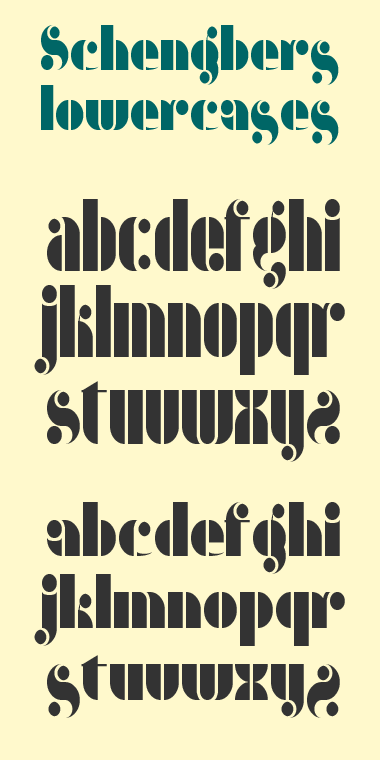
Schengbers LC
by kassymkulov
Just wanted to have some opinion and suggestions while making uppercase for each lowercase in here. Schengber (Шеңбер) means circle in my language. I want this to be a family, so ideas for "Schengbers uppercases", "Schengbers tall" & "Schengbers short" are in mind. Thanks and Enjoy!
Beautiful execution of the new bricks. 10/10
Delightful! Those little whiskers derived from the fin bricks are k-e-w-t as can be. The liveliness of this one puts my isthmus family in its proper place.
Fontstructors are really stepping up their composite game, lately. Fun stuff all around. 10/10!
Funny, how some works well worthy of the stencil comp are coming too late...
This one is very good. I love the G and the s. One should think of doing a poster only with the g's from various fontstructions.
You are absolutely on the right way. Are you going to develop cyrilic characters as well?
Very exciting use of the new bricks.
Yeap, new bricks rule! ;) Your dm Spira is another proof of it.
Isthmus series are delightful either. One can learn a lot by examining it.
Well, inspiration can't be controlled. Usually it just comes out of nowhere :) I remember failing at creating smth similar to this so many times.. Gladly, new bricks helped a lot.
Competition was very helpful, otherwise I would've never thought of "Barney Stencil" or "Bonn!".
Cyrillics. I actually plan to develop them on every fontstruction I've created, it's just that laziness, you know, that prevents from doing it... :)
This is beautiful! Great use of the new bricks. 10/10
Amazing! The only thing is that I'm not sure the roundness fits the Z.
@laynecom, love the poster idea!
Oh wow, you make beautiful font with just few bricks!
I like the idea of Z/z although it may not fits with the style as Yautja said.
changed Z,z. What do you think?
Better, but could be improved still I think. Or what about something like this?
Beautiful ,great use of fin bricks. I like Yautja's suggestion above. 10/10!
The upper G is genius. Bravo!